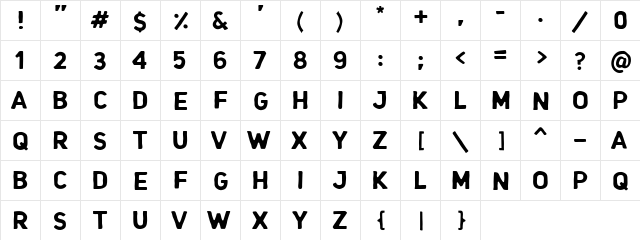
HOCCEN CAPS Regular
Design Context for HOCCEN CAPS Typeface
HOCCEN CAPS offers clean, dependable letterforms without strong stylistic allegiance, making it a practical choice for designers who need flexibility.